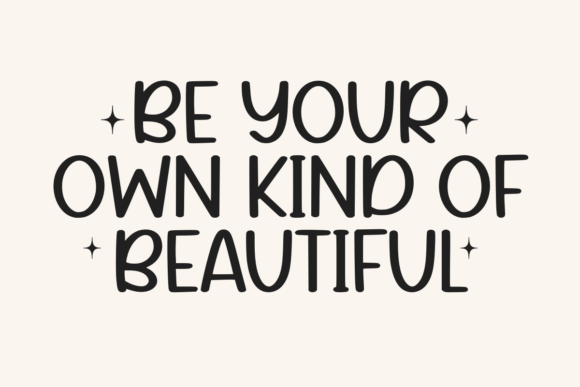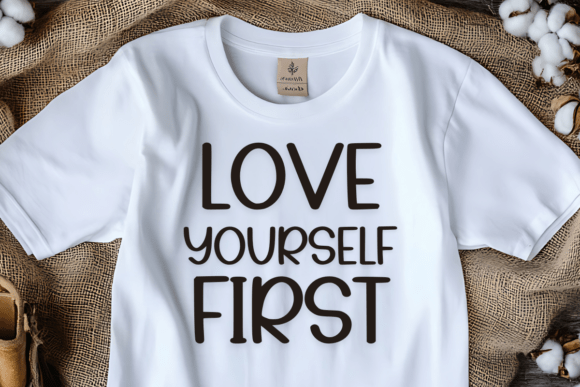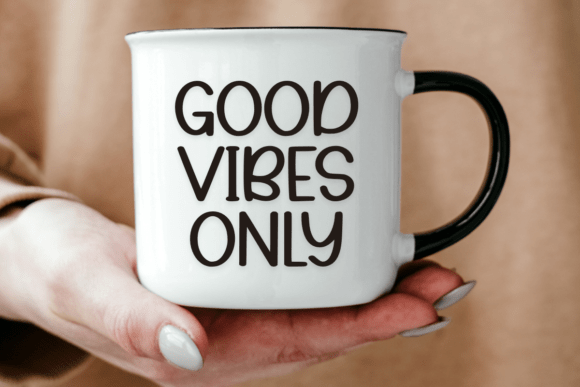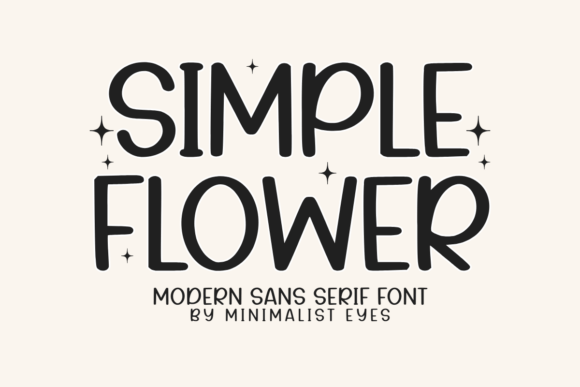
Introduction to Simple Flower Font
Simple Flower is a charming and modern sans serif font that radiates playful elegance.
With its clean lines and rounded edges, this font captures a β€œminimalist eye” aesthetic, making it perfect for designers who want to add a touch of warmth and friendliness to their projects Whether you are creating whimsical nursery art, chic branding, or trendy social media graphics, Simple Flower offers a versatile and easy-to-read style that stands out.